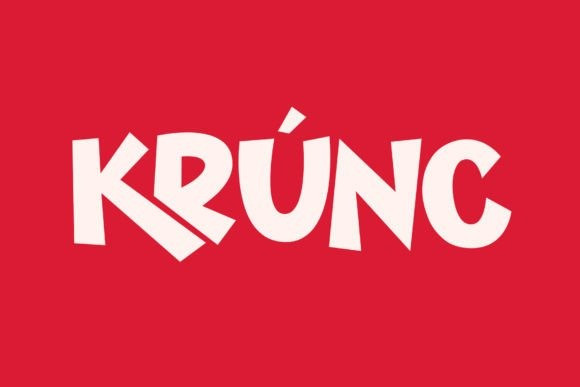
Krunc Display Font
Krunc Display Font is designed to make a bold and impactful statement in any design project. With its strong, bold style, Krunc delivers a dynamic and eye-catching character, perfect for various modern design needs.